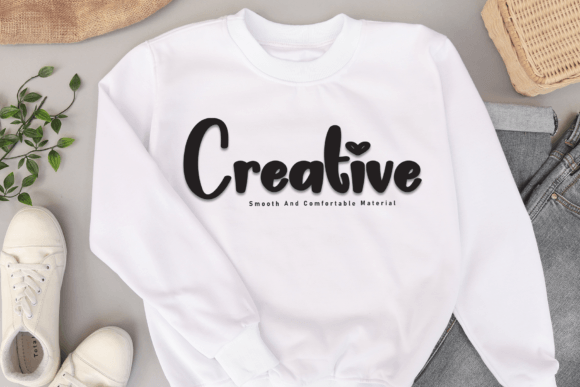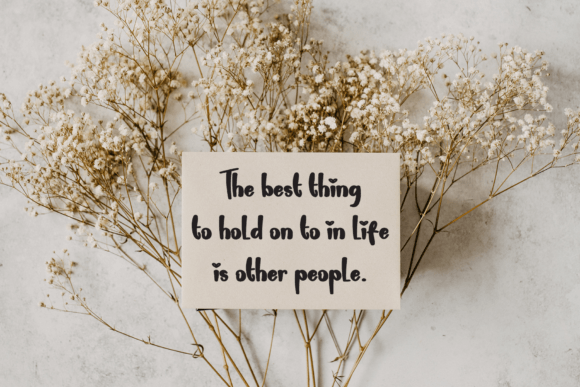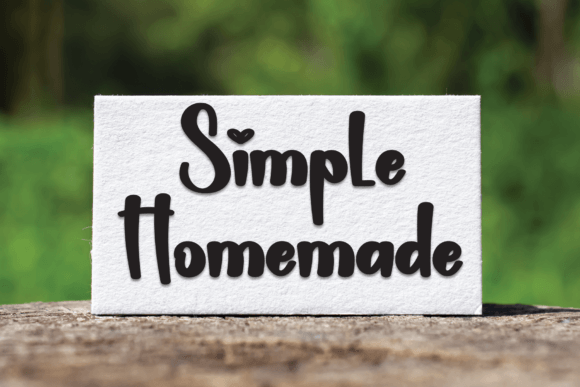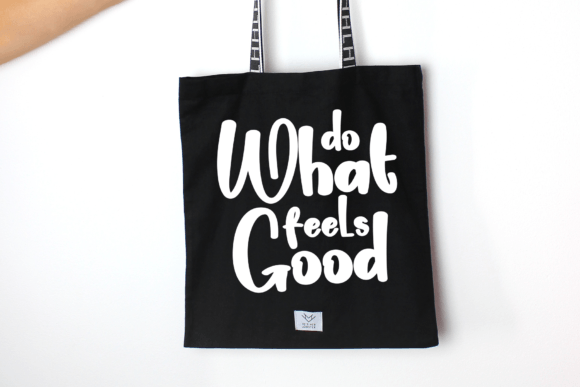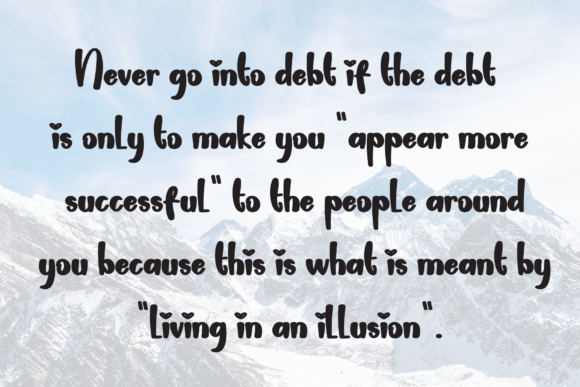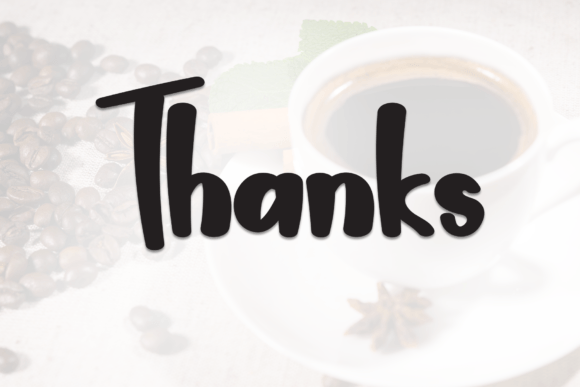
Introducing Black Coffee Font: A Sweet and Friendly Handwritten Delight
Are you tired of using the same old fonts in your designs? Look no further than Black Coffee Font, a sweet and friendly handwritten font that’s sure to add a touch of personality to your projects. With its natural and unique style, Black Coffee Font is incredibly versatile and can be used in a wide range of designs, from rustic and vintage to modern and playful.
As a designer or crafter, you’re always on the lookout for fonts that can help you stand out from the crowd. Black Coffee Font is a game-changer in this regard. Its hand-drawn feel and irregularities give it a charming, homemade quality that’s perfect for designs that need a personal touch. Whether you’re creating invitations, branding materials, or social media graphics, Black Coffee Font is sure to make your designs shine.
What Makes Black Coffee Font So Special?
So, what sets Black Coffee Font apart from other fonts out there? Here are just a few things that make it special:
- Unique and Handwritten Style: Black Coffee Font is a true handwritten font, with each letter and character carefully crafted to give it a natural, organic feel.
- Natural and Earthy Vibe: The font has a warm, earthy quality that’s perfect for designs that need a rustic or vintage touch.
- Highly Versatile: Black Coffee Font can be used in a wide range of designs, from playful and whimsical to elegant and sophisticated.
- Easy to Read: Despite its handwritten feel, Black Coffee Font is incredibly easy to read, making it perfect for body text and other applications where legibility is key.
How to Use Black Coffee Font in Your Designs
One of the best things about Black Coffee Font is how easy it is to use. Here are a few ideas to get you started:
- Invitations and Party Decor: Black Coffee Font is perfect for creating custom invitations, party decor, and other celebratory materials.
- Branding and Packaging: Use Black Coffee Font to add a personal touch to your branding and packaging materials, such as labels, business cards, and brochures.
- Social Media Graphics: Black Coffee Font is a great choice for social media graphics, such as quote graphics, blog post headers, and other shareable content.
- DIY Projects and Crafts: Black Coffee Font is also perfect for DIY projects and crafts, such as handmade cards, gift tags, and other paper crafts.
Tips for Getting the Most Out of Black Coffee Font
Here are a few tips for getting the most out of Black Coffee Font:
- Experiment with Different Sizes and Colors: Black Coffee Font looks great in a variety of sizes and colors, so don’t be afraid to experiment and find the combination that works best for your design.
- Pair it with Other Fonts: Black Coffee Font pairs well with a variety of other fonts, so try combining it with some of your favorite fonts to create a unique and interesting look.
- Use it to Add a Personal Touch: Black Coffee Font is all about adding a personal touch to your designs, so don’t be afraid to get creative and use it in ways that feel unique and authentic to your brand or project.
Black Coffee Font is a sweet and friendly handwritten font that’s perfect for designers and crafters who want to add a personal touch to their projects. With its natural and unique style, Black Coffee Font is incredibly versatile and can be used in a wide range of designs. Whether you’re creating invitations, branding materials, or social media graphics, Black Coffee Font is sure to make your designs shine. So why wait? Download Black Coffee Font today and start creating your own unique and beautiful designs!